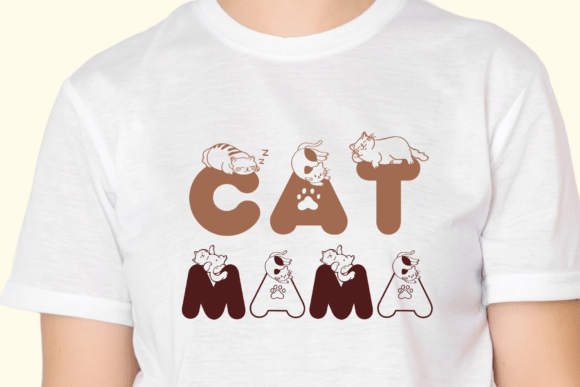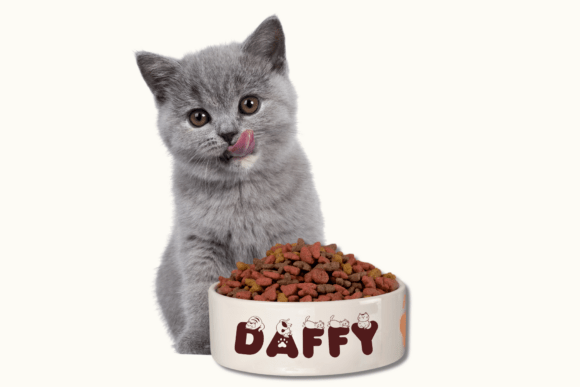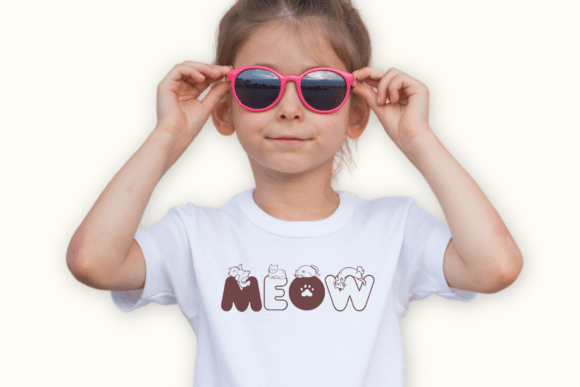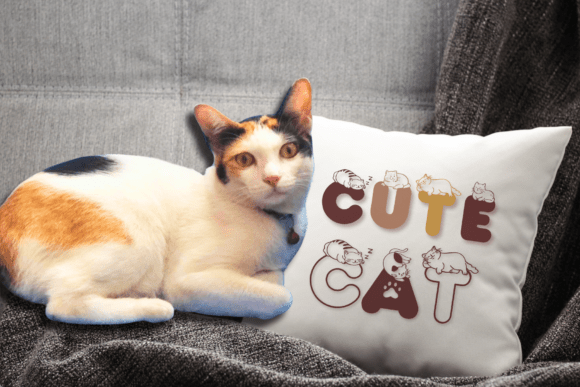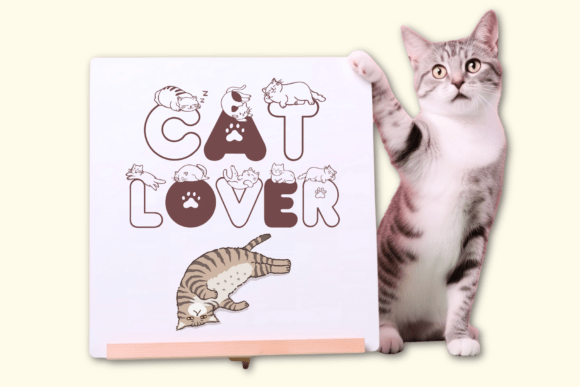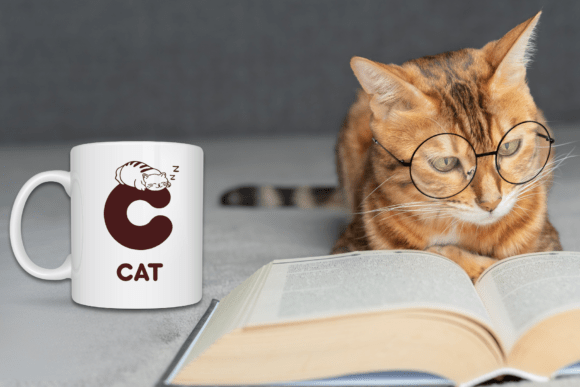
The Purr-fect Font: How Cat Purr Font Can Elevate Your Designs
I’ll never forget the time I was working on a project for a pet shop client, and I just couldn’t find the right font to capture their playful and friendly vibe. The client wanted something that would appeal to cat lovers of all ages, and I was determined to deliver. That’s when I stumbled upon Cat Purr Font, a delightful typeface that combines adorable cat illustrations with playful typography. It was love at first sight! 💕
In this article, I’ll share my experience with Cat Purr Font, its features, and how to make the most of it in your designs. Whether you’re a designer, crafter, or creative hobbyist, you’ll learn how to add a touch of whimsy and charm to your projects.
What Makes Cat Purr Font So Special?
Cat Purr Font is more than just a typeface – it’s a design element that brings warmth and joy to any creative project. Each letter of the alphabet is creatively designed with sleeping cats, stretching cats, sitting cats, and playful kittens integrated into the letterforms. This font is perfect for:
- Cat lovers and enthusiasts
- Pet shop branding and marketing materials
- Children’s designs, such as books, toys, and games
- Playful packaging and product labels
- Greeting cards, posters, stickers, and more
Honest Review: The Good and the Quirks
Here’s what I love about Cat Purr Font: ✨
- ✅ Adorable and playful design that’s sure to delight cat lovers
- ✅ Highly decorative and eye-catching, perfect for making your design stand out
- ✅ Versatile and suitable for various design projects, from digital to print
- ✅ Easy to use and pairs well with other fonts and design elements
And here are some minor quirks to consider: 🤔
- ⚠️ Some letters may be a bit tricky to read, especially for body text
- ⚠️ Limited use for formal or professional designs, as it’s quite playful
The Story Behind Cat Purr Font
Cat Purr Font was designed by a team of creatives who wanted to capture the joy and playfulness of cats in a typeface. Inspired by their own feline friends and the world of cat lovers, they crafted a font that’s both fun and functional. Whether you’re a cat enthusiast or just looking for a unique design element, Cat Purr Font is sure to bring a smile to your face.